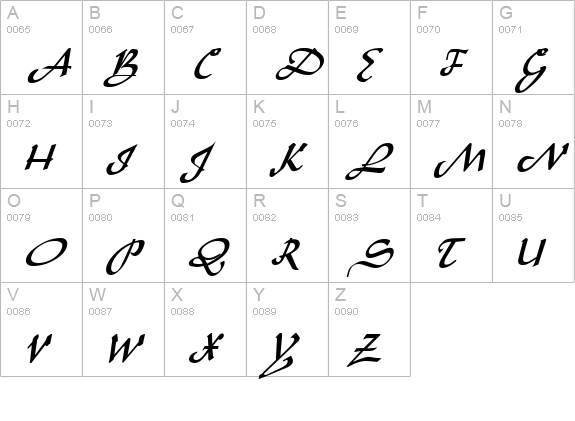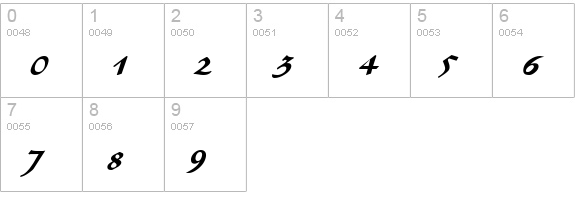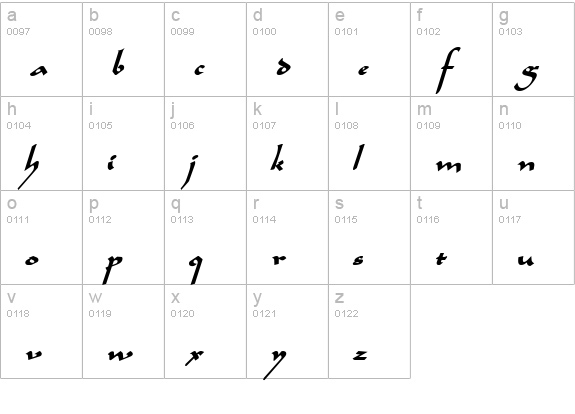
Sinbad Bold Font Details
Sinbad Bold is a strong, high-contrast variant in the Sinbad typeface family \xE2\x80\x94 well suited to headlines, attention-grabbing titles, and strong calls-to-action.
Sinbad Bold is a captivating and versatile typeface that exudes confidence and strength. This stunning font features bold, prominent letterforms with a touch of modern sophistication. Its unique design combines sharp edges with subtle curves, creating a harmonious balance that is both eye-catching and easy to read. Sinbad Bold is perfect for adding a touch of boldness to any project. Whether you're designing a logo, creating eye-catching headlines, or crafting stylish packaging, this font will make a lasting impression. Its strong presence commands attention and ensures that your message is delivered with impact. Not only does Sinbad Bold possess an irresistible visual appeal, but it is also available for free download at FontsMarket.com. This means that you can enhance your designs without breaking the bank. Simply visit FontsMarket.com, download Sinbad Bold, and start exploring the endless possibilities this font has to offer. With Sinbad Bold, you can effortlessly elevate your designs to new heights. Its versatility allows it to be used in a wide range of applications, from print materials to digital platforms. Whether you're designing for a corporate brand, a fashion label, or a creative project, Sinbad Bold will add a touch of elegance and sophistication. In conclusion, Sinbad Bold is a must-have font for any designer or creative professional. Its bold and striking aesthetics, combined with its availability as a free download at FontsMarket.com, make it the ideal choice for those seeking a font that stands out from the crowd. Get your hands on Sinbad Bold today and watch your designs come to life with its captivating presence.